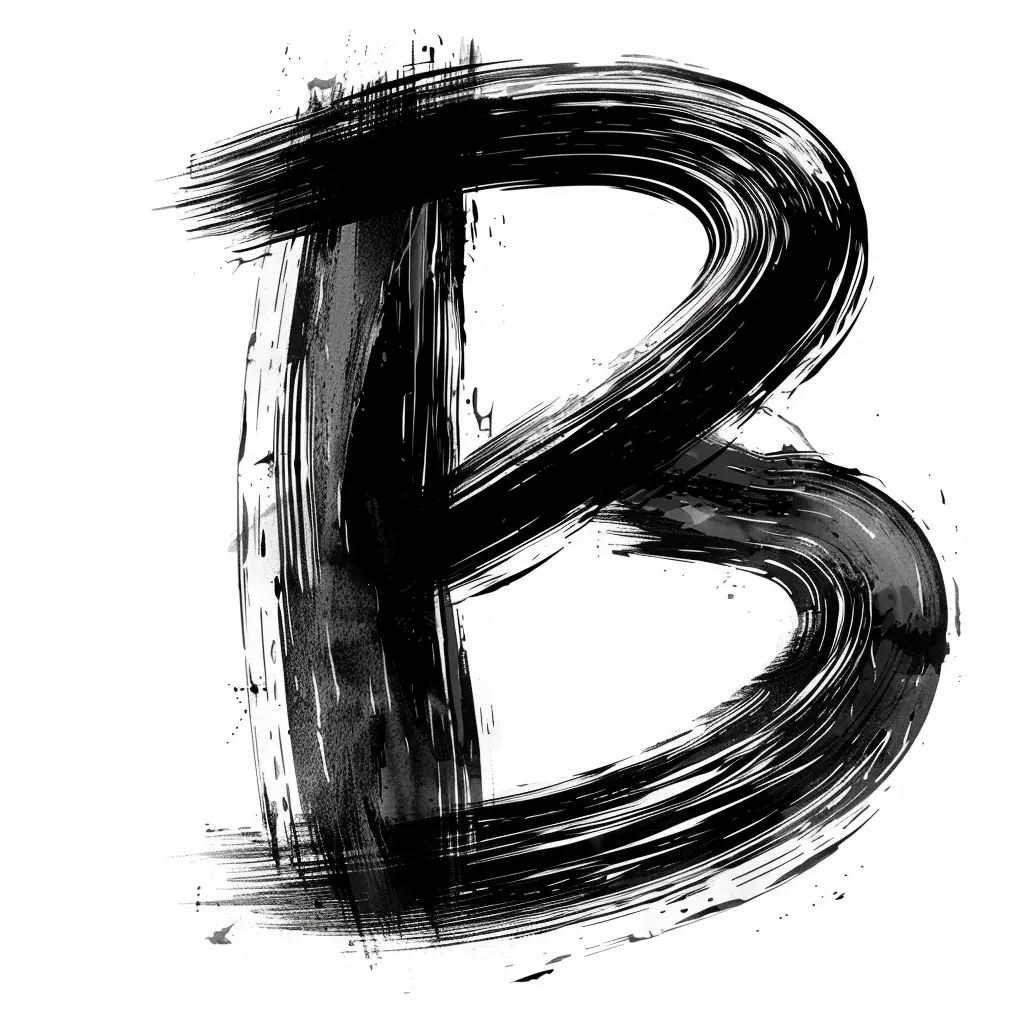
The image features a stylized letter "B" rendered in a bold, expressive brushstroke style. The letter is predominantly black with dynamic, textured strokes and subtle gray shading, set against a clean white background. Visual elements include rough, painterly edges, splatters, and layered ink effects that give it an artistic, hand-drawn appearance.